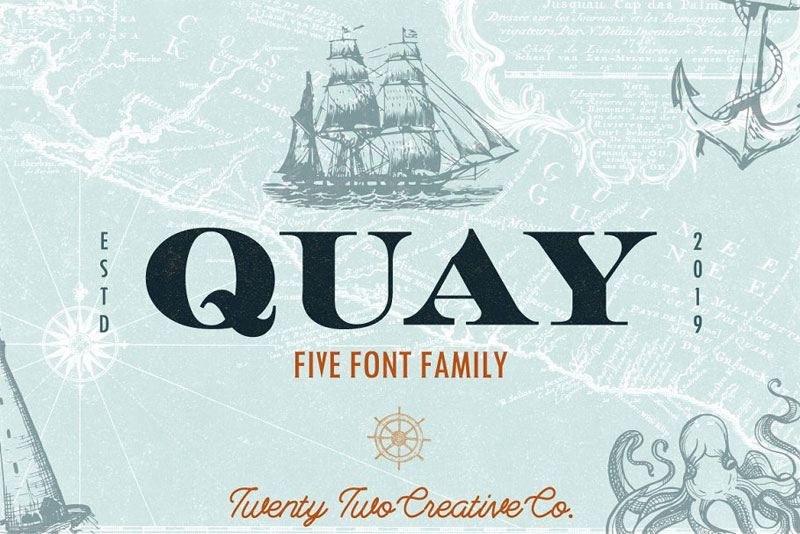
Free Commercial Nautical Fonts
This bold font comes with upper/lower case alphabets, numbers and punctuation. In dingbats > various 77,177 downloads (12 yesterday) 1 comment 100% free. Classics (baskerville, futura, garamond) alongside hot new fonts (brice, moneta,novera).
This typeface has a slightly bold texture appearance. Download free fonts for commercial use. This font style has a clear screen visualization that is suitable for both small and large screen displays.
Another one of the nautical fonts that we want to recommend you check out. Click to find the best 34 free fonts in the nautical style. Nautical font | dafont.com english français español deutsch italiano português.